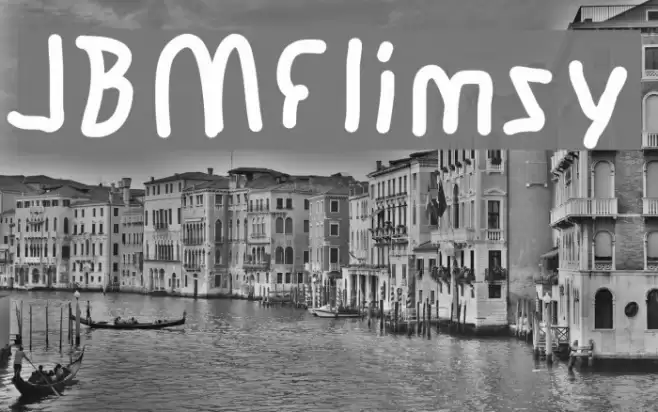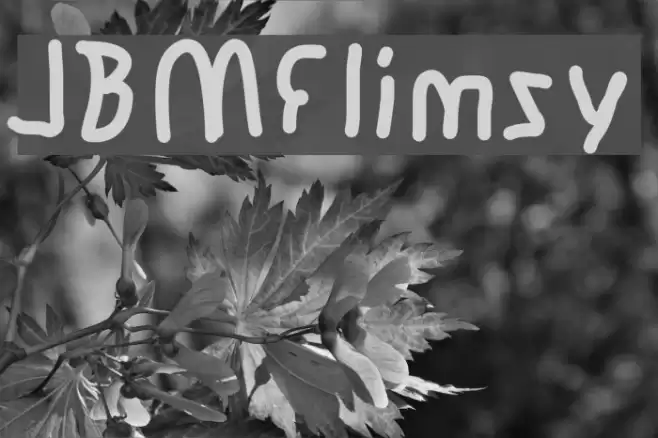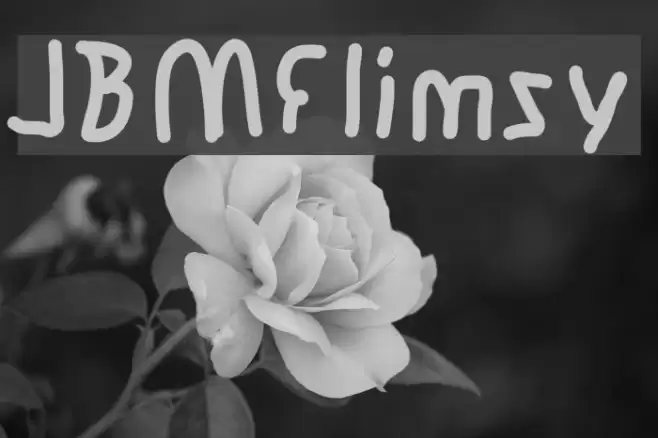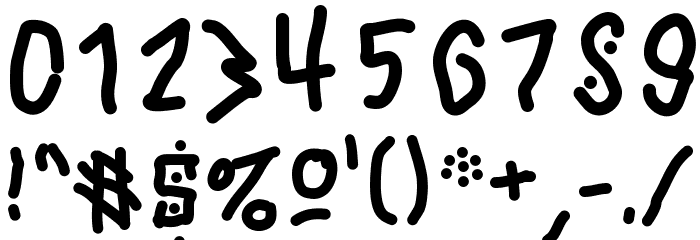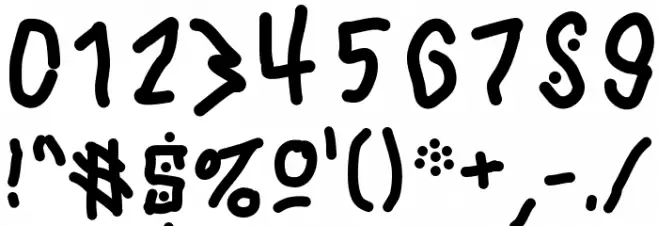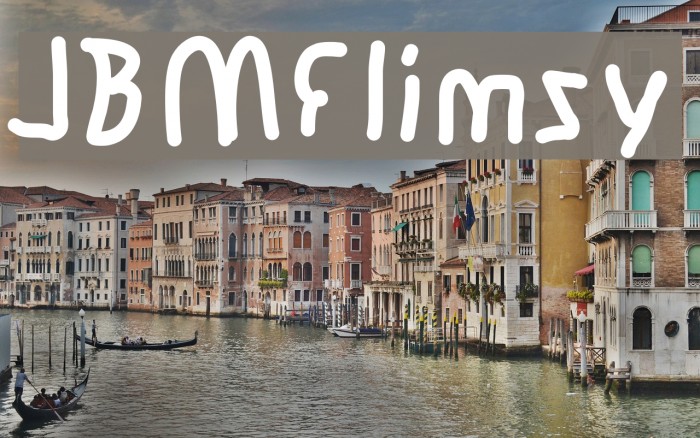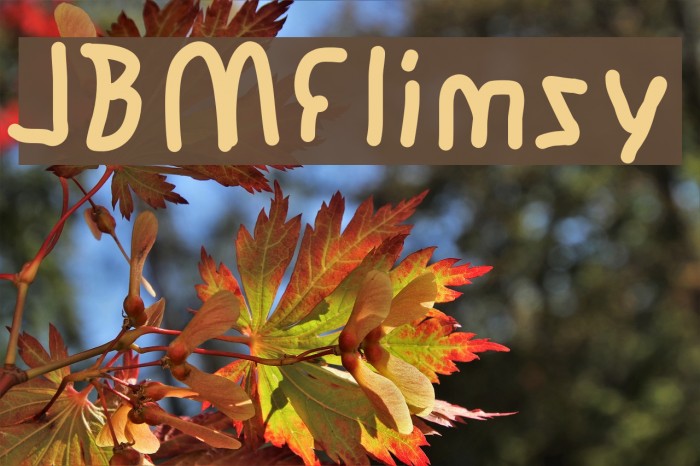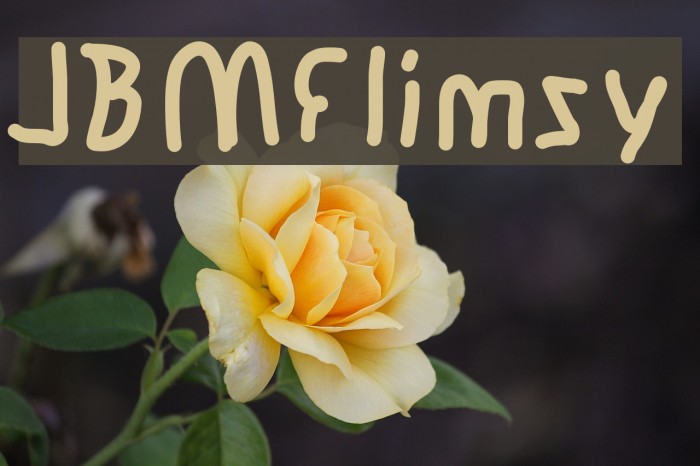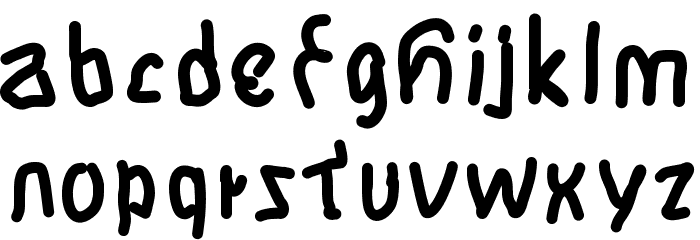
JBMFlimsy Font
JBMFlimsy Description
This font features a playful and quirky design with irregular, hand-drawn strokes that give it a whimsical and informal appearance. The characters are bold and rounded, with a slightly uneven baseline that adds to its charm. The uppercase and lowercase letters maintain a consistent style, while the numbers and special characters follow the same playful theme. The font's unique personality makes it stand out, making it suitable for creative and fun projects. Its boldness ensures readability, while the irregularities add a touch of individuality.
A playful, hand-drawn font with bold, rounded characters and a whimsical style from Uncategorized fonts.
- Proposed Projects: Ideal for children's books, comic strips, playful branding, and creative posters.